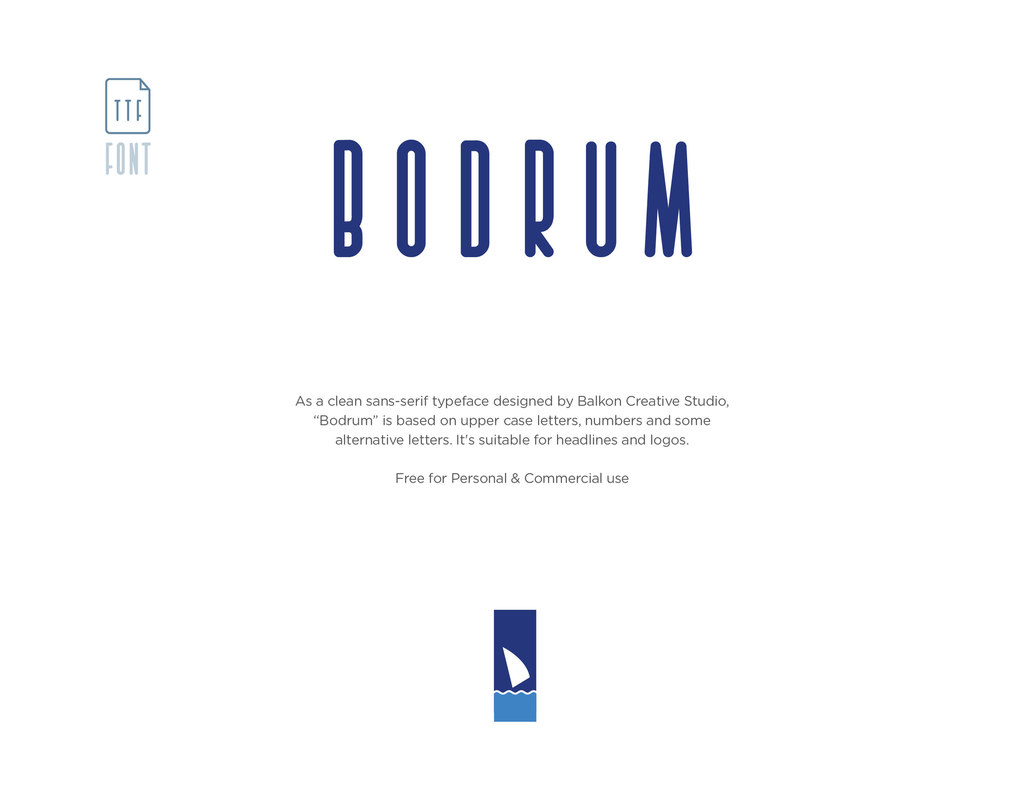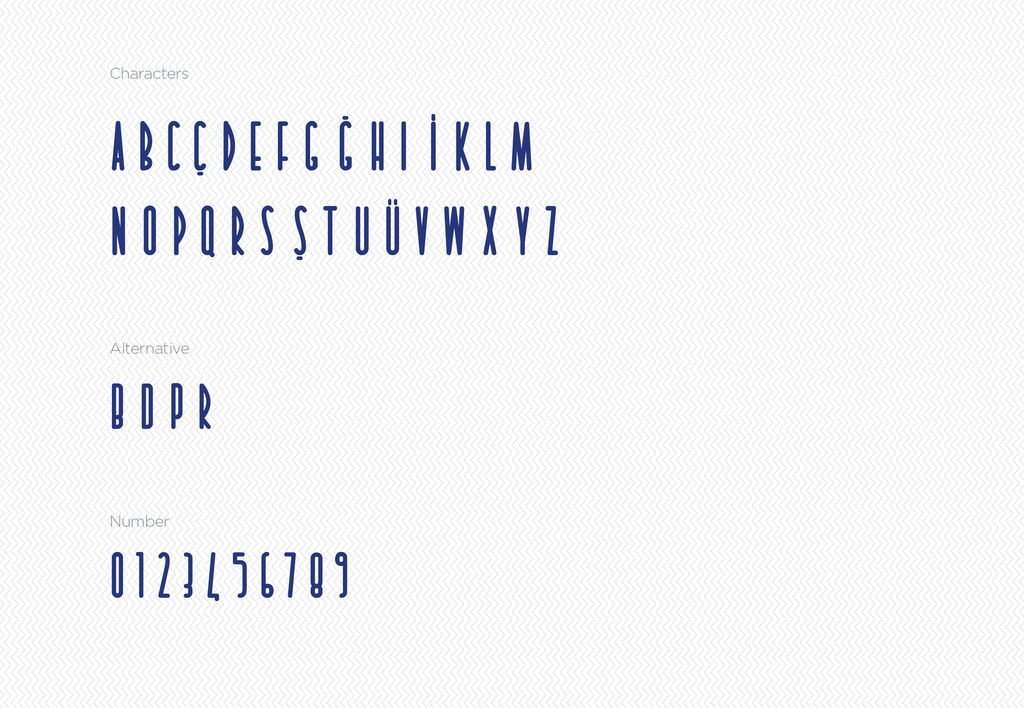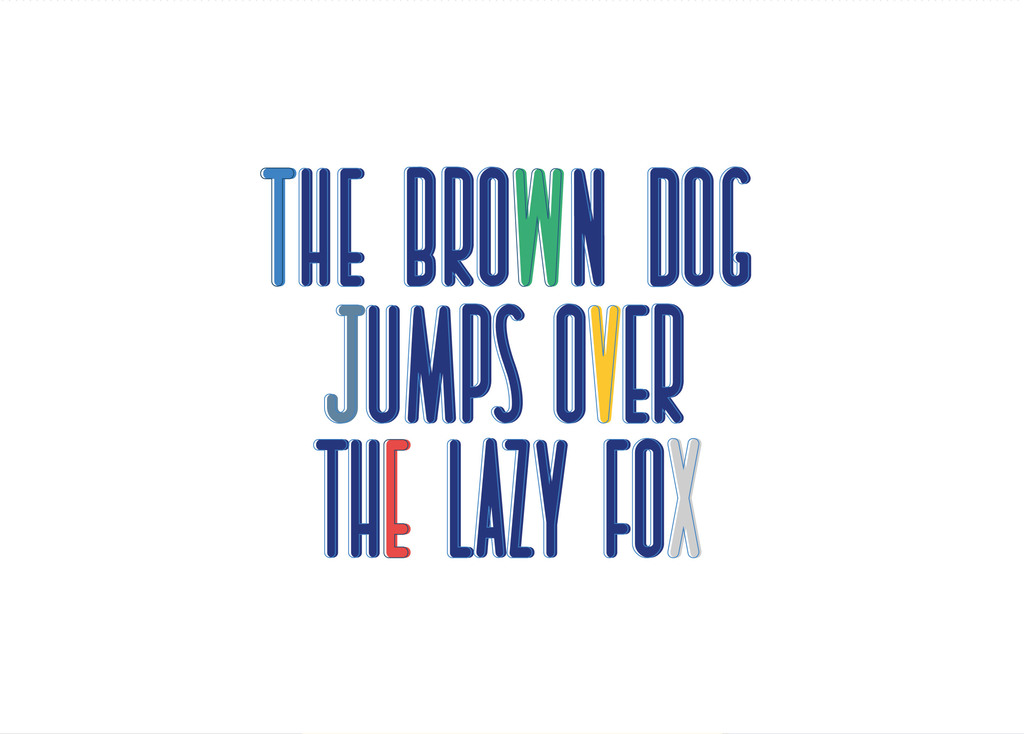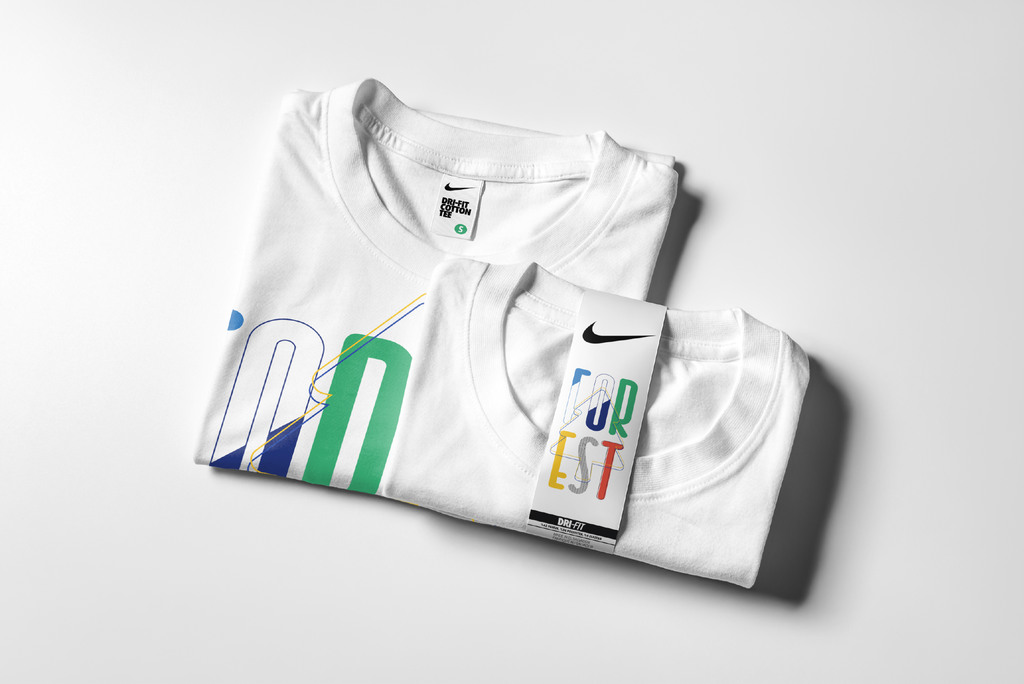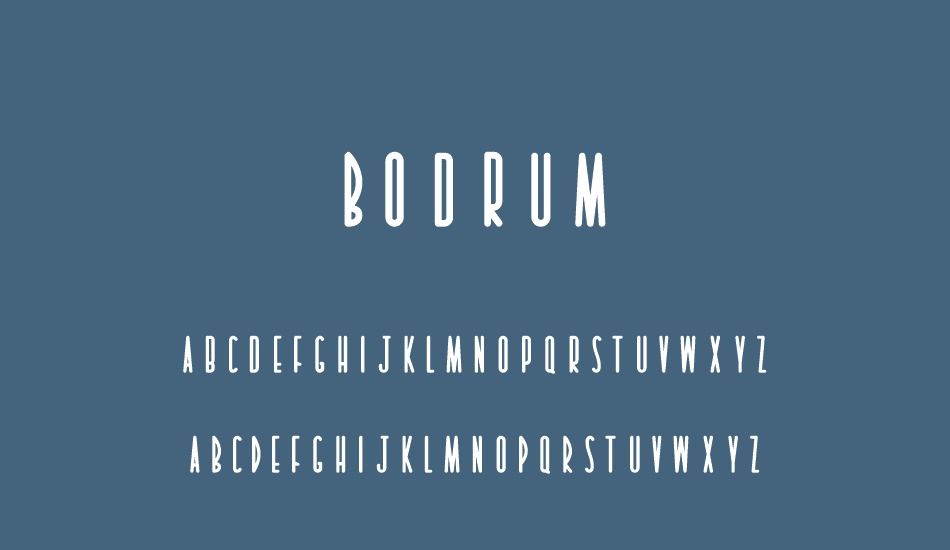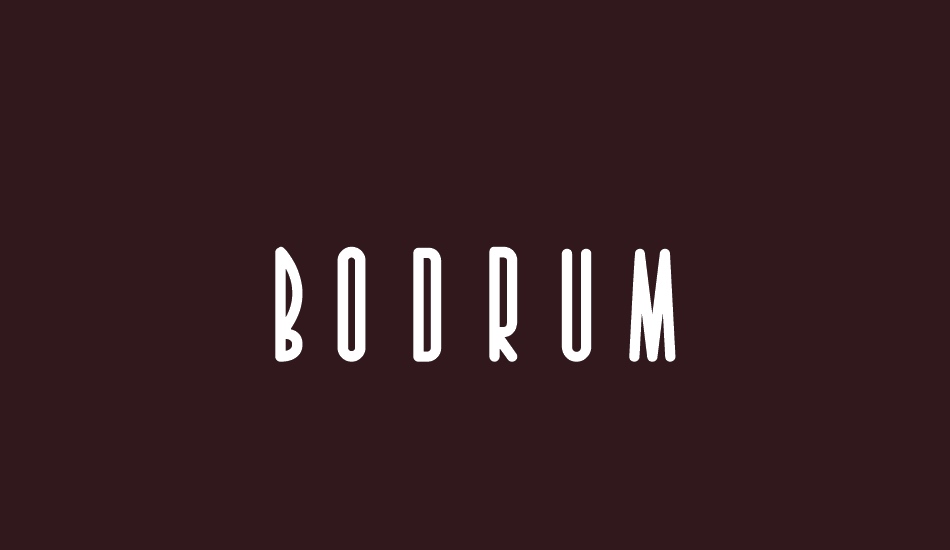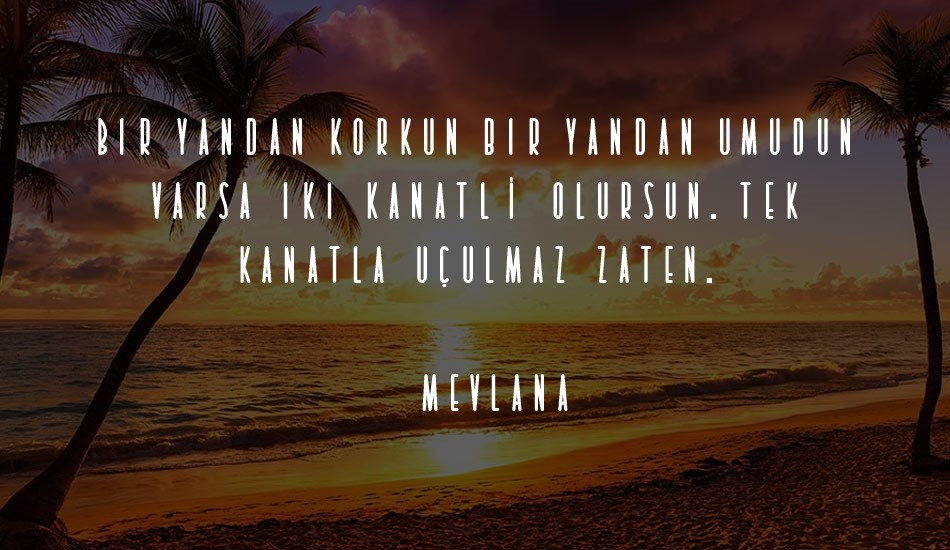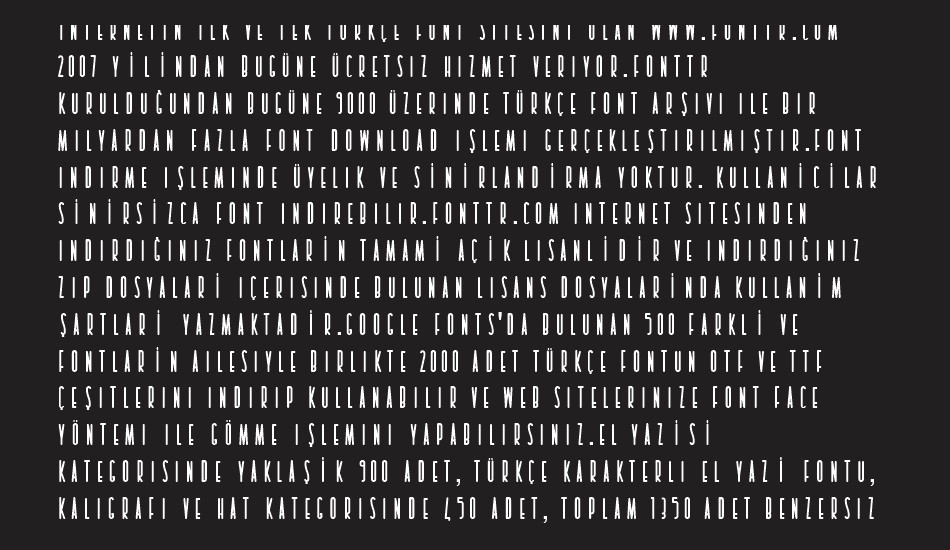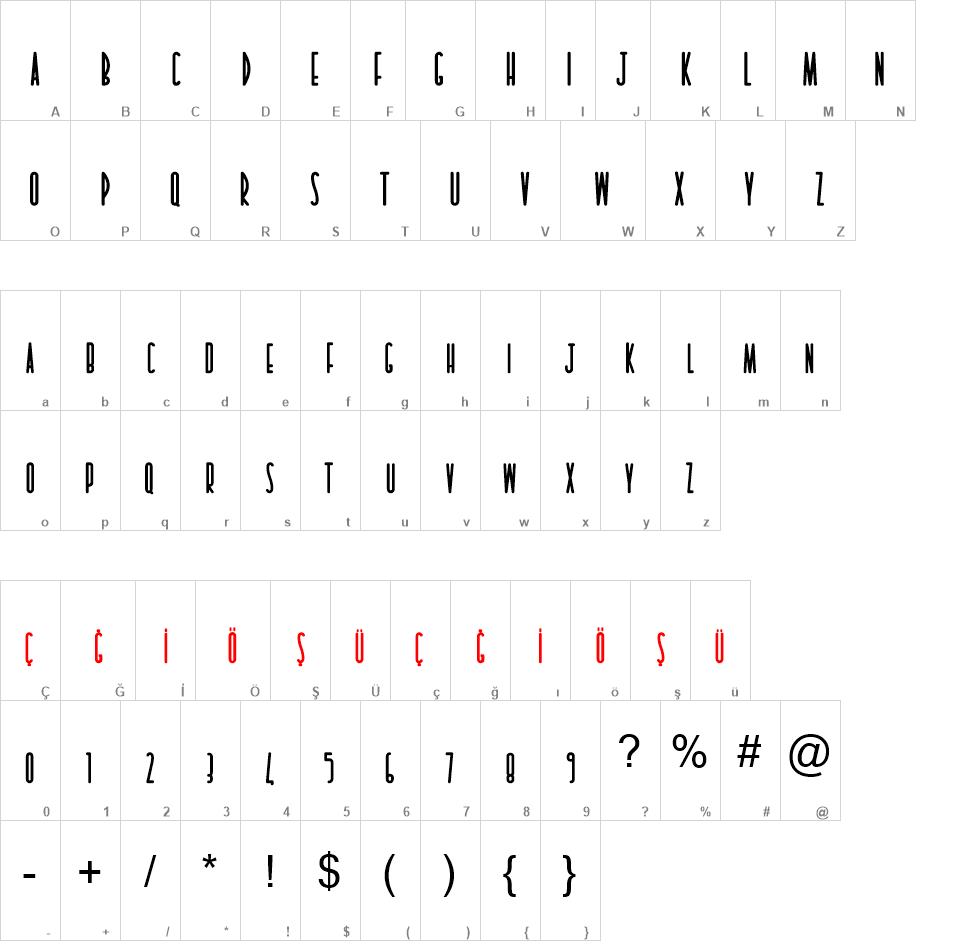
Bodrum Font
As a clean sans-serif typeface designed by Balkon Creative Studio, “Bodrum” is based on upper case letters, numbers and some alternative letters. It's suitable for headlines and logos.
Bodrum font